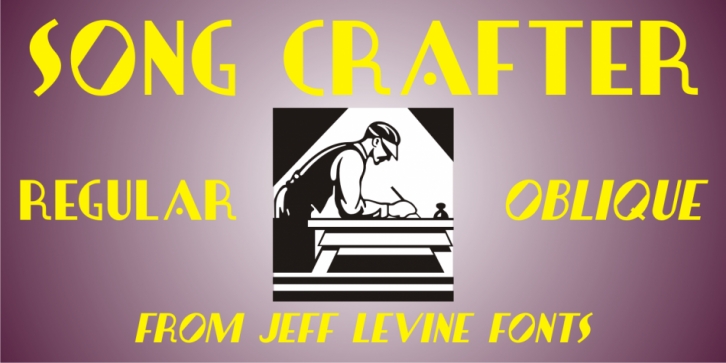
Designed by Jeff Levine, Song Crafter JNL is a art deco font family. This typeface has two styles and was published by Jeff Levine Fonts.
Song Crafter JNL was modeled from the writer credits on the cover of the 1943 sheet music for “This Love of Mineâ€, a tune popularized by Frank Sinatra.